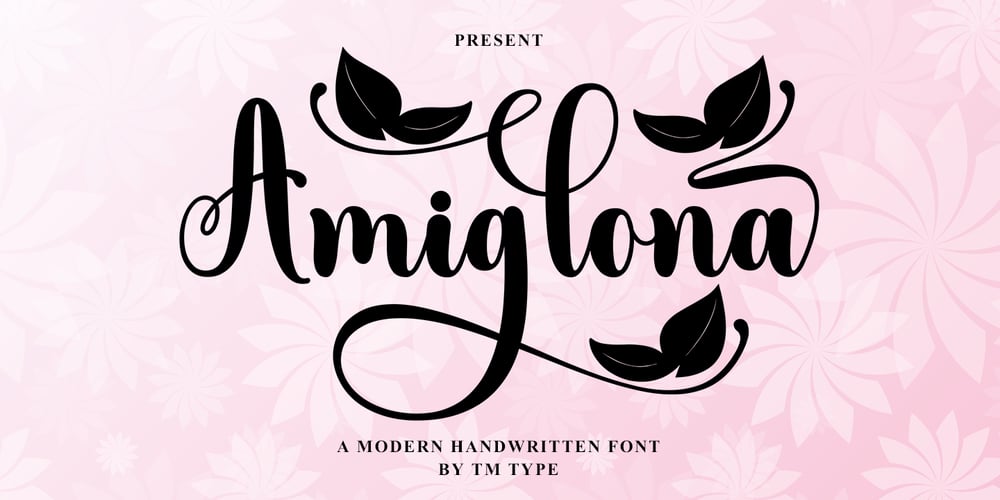
Amiglona Font Family was designed by Teuku Bustami and published by TM Type. Amiglona contains 1 styles and family package options. Amiglona is a very cute, elegant and unique handwritten font. Expertly designed to be a true favourite, this font has the potential to take your creative ideas to the highest level!This font is PUA encoded which means you can access all the glyphs and sweeps easily!Amiglona is attractive because it is sleek, clean, feminine, sensual, glamorous, simple and very easy to read, thanks to its many fancy lettering joints. I also offer a decent number of style alternatives for all letters. Classic style is very suitable to be applied in various formal forms such as invitations, labels, restaurant menus, logos, fashion, make up, stationery, novels, magazines, books, greeting/wedding cards, packaging, labels or all kinds of advertisements. for your purposes. . . . . . .Contains full set:-Uppercase-Lowercase-Alternative-Ligatures-Punctuation-Number-Multilingual support.need help or have questions let me know. I’m happy to help.Thanks & Congratulations on the Design